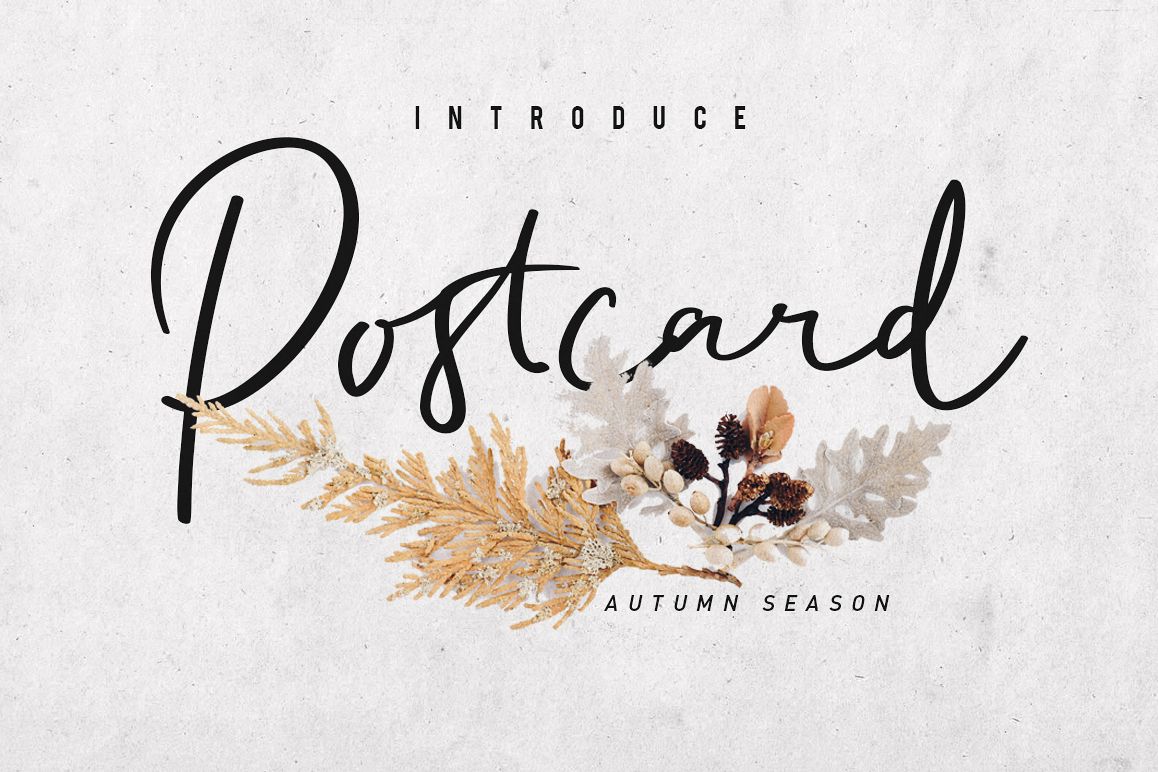
Postcard Script
a Postcard Script is good handwriting font style. Can make it easier to convey the message in your design. Use for awesome display, wedding, birthday, labeling, clothing, movie sceen, poster, movie title, gigs, album covers, logos, and much more.Include :Postcard Script
• Uppercases & Lowercases
• Numerals & Punctuations
• Lowercase Alternates